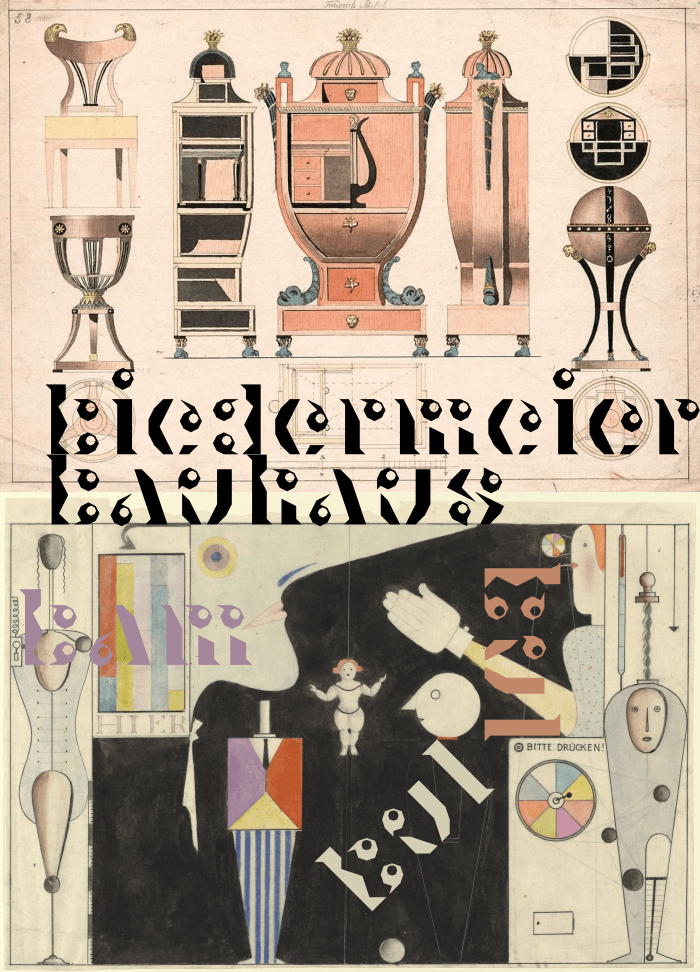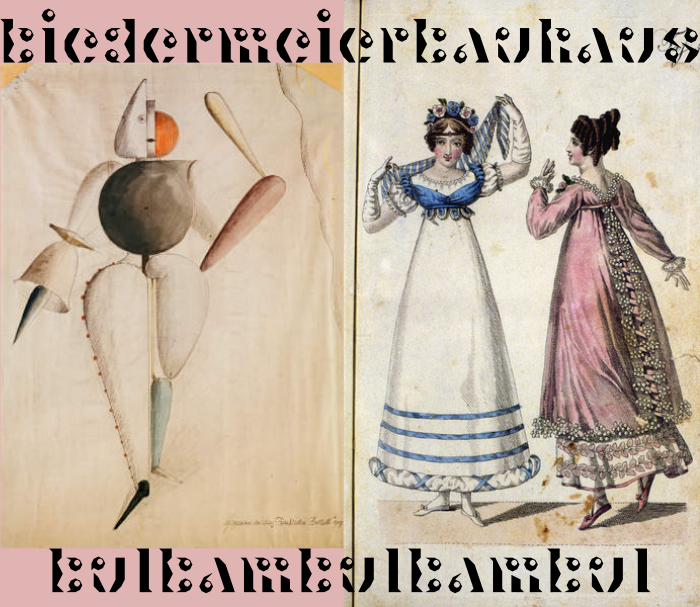
I love how you keep applying small variations to fonts to build large families. I wonder if this family will have a version using real circles and curves.
Well, I must admit I have a bit of an issue with trying to mimic via Fontstruct smooth Bézier curves. In the past (once), I tried to make a smooth, clean font, but later I deleted it and didn't try again. I don't feel like making all those complicated overlappings, etc. Regards to all who do it with a high degree of virtuosity! I am rather interested in what one can achieve within the grid while abandoning smooth outlines. Thus I don't expect real circles and curves will ever appear in any of my Fontstructions. :)
I am not great with large grids either. I admire those who are. I actually meant circular and other curved bricks. I think they could work well for this particular family.
i wary of the curved bricks. i feel if i will use them, soon i might get trapped — unable to make some variations. but i will think of what you said! in any case, i am mainly looking forward to colors! :)